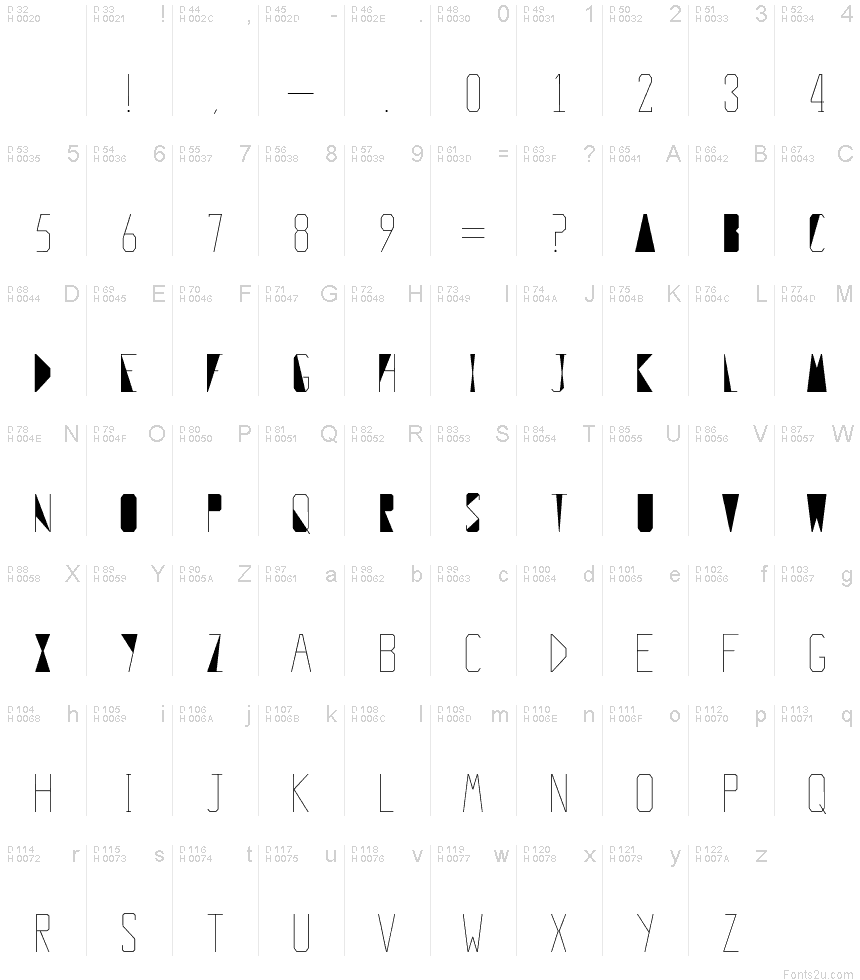
Yava by Shiho Yokoyama of FontLab Studio is a free high-contrast sans serif display font with towering forms and radically changing stroke widths. Its letters alternate between dense wedges and near-hairline geometry.
Used as theatrical lettering, it can turn a poster into a stark sequence of solids and open lines. The same severe construction suits fashion editorials, album covers, and experimental event graphics, especially when the type becomes part of the image rather than a neutral caption. For an arts venue or fashion label, its shifting weight can supply a recognizable product and brand identity across packaging and signage.
Yava
Shiho Yokoyama